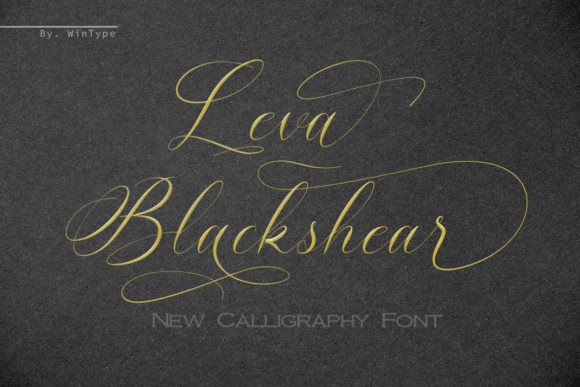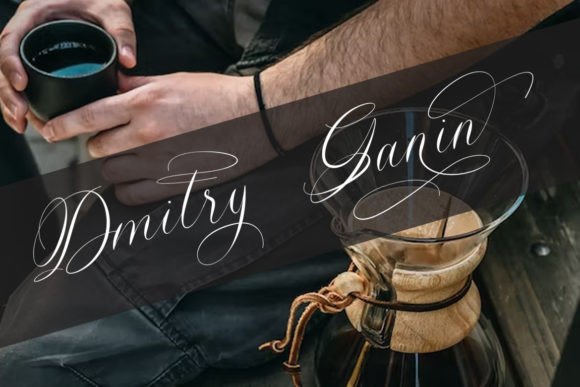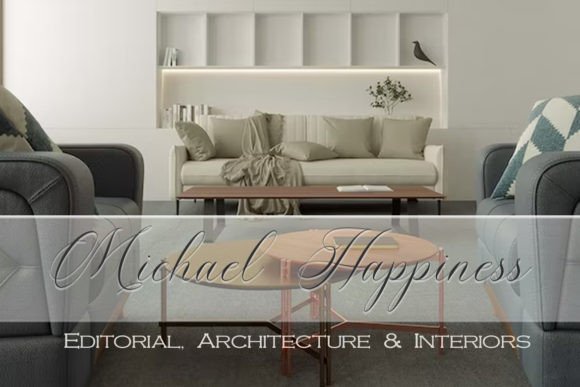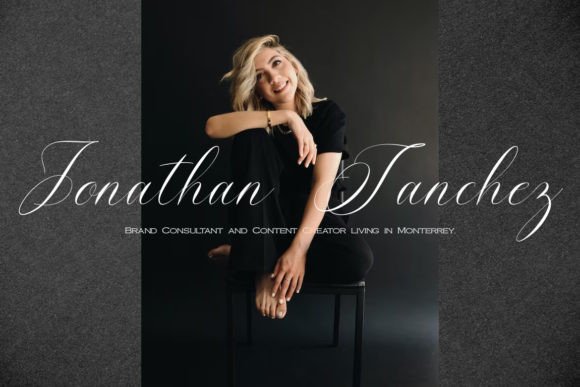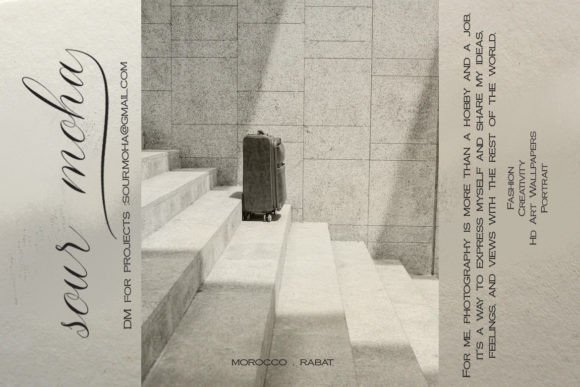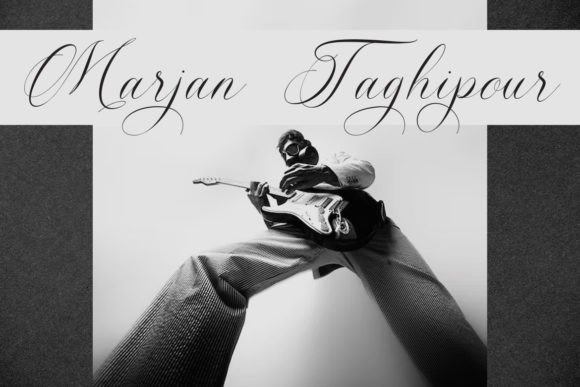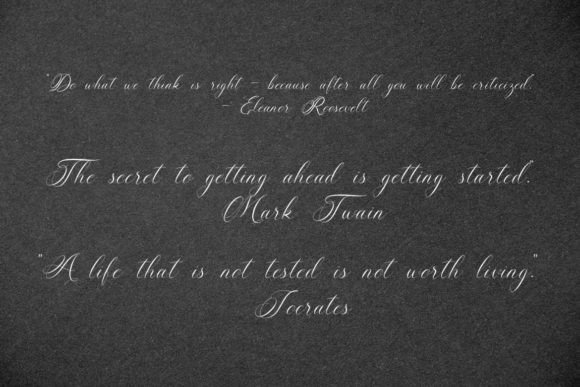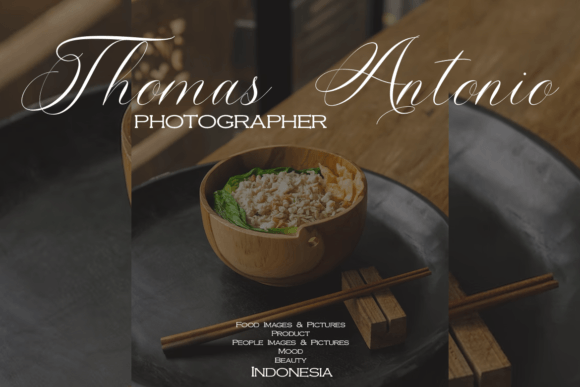
Leva Blackshear Font
About Leva Blackshear Script Font
Leva Blackshear ScriptFont is a sleek, modern, and graceful handwritten typeface crafted to bring elegance and sophistication to your creative projects. With flowing strokes and refined details, it balances contemporary style with classic charm. Because of its versatility, Leva Blackshear Script Font is perfect for logos, invitations, wedding stationery, product packaging, social media graphics, and branding campaigns.
A Sleek Typeface with Graceful Character
Handwritten fonts often highlight individuality, and Leva Blackshear ScriptFont captures that essence beautifully. Its smooth lines and polished flow make it highly adaptable, ensuring it looks elegant across professional and personal projects. In addition, its graceful rhythm makes it a timeless resource for designers.
Perfect Typeface for Invitations and Logos
For wedding stationery, event cards, and invitations, Leva Blackshear ScriptFont adds a romantic and stylish touch. For example, it enhances save-the-date cards, menus, and thank-you notes with its handwritten elegance. Moreover, it is a strong choice for logos, transforming brand names into memorable and sophisticated identities.
A Script Typeface for Branding and Packaging
Businesses and creatives can also benefit from Leva Blackshear ScriptFont. It adds personality to product labels, boutique branding, and advertising campaigns. Furthermore, it works beautifully on packaging, promotional materials, and social media posts. When paired with minimal sans serif fonts, it creates a refined and balanced design.
Flexible Across Print and Digital Media
Another strength of Leva Blackshear ScriptFont is its adaptability across mediums. In print, it enhances brochures, flyers, and magazines. Digitally, it elevates websites, blogs, and online shops with a professional handwritten flair. Since it scales cleanly across small and large sizes, this font remains practical for everything from business cards to banners.